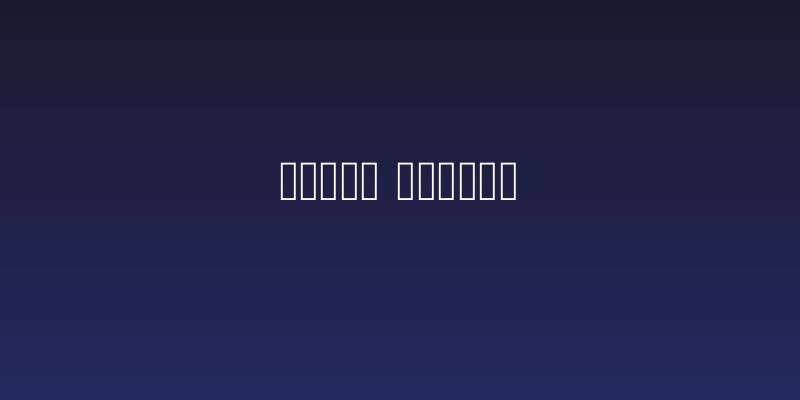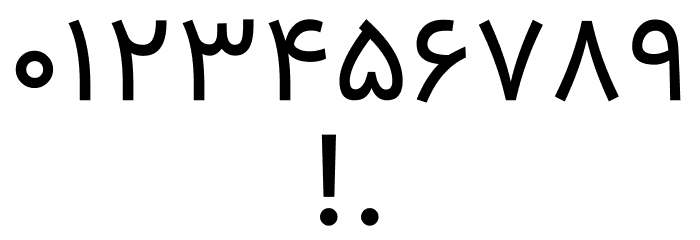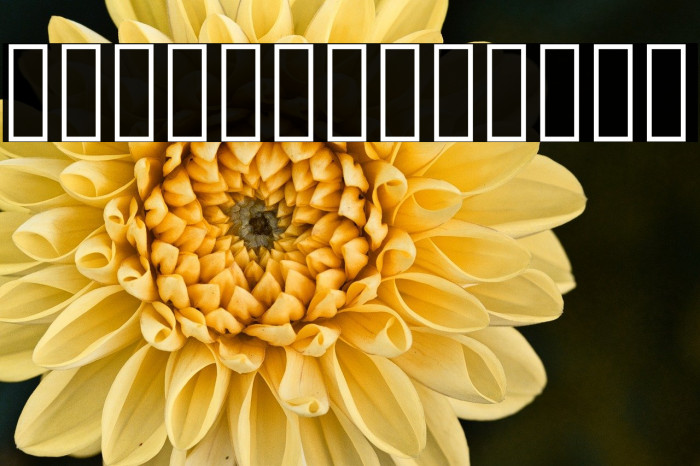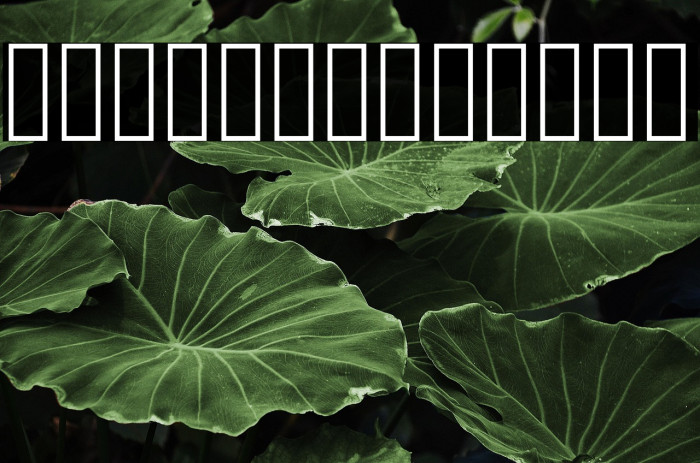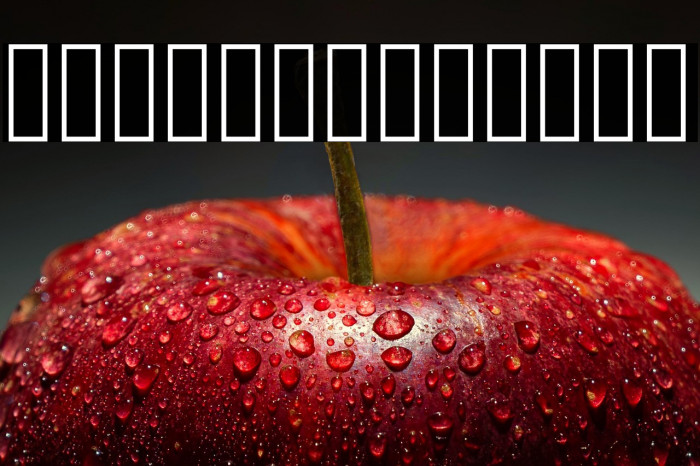
Vazir FD-WOL Font
Vazir FD-WOL Description
This font features a unique and playful design with a modern twist. The characters are bold and slightly curved, giving them a friendly and approachable appearance. The numbers are particularly distinctive, with a whimsical style that adds character and charm. The punctuation marks are simple yet effective, maintaining the overall playful aesthetic. This font is perfect for projects that require a touch of creativity and fun, while still maintaining readability.